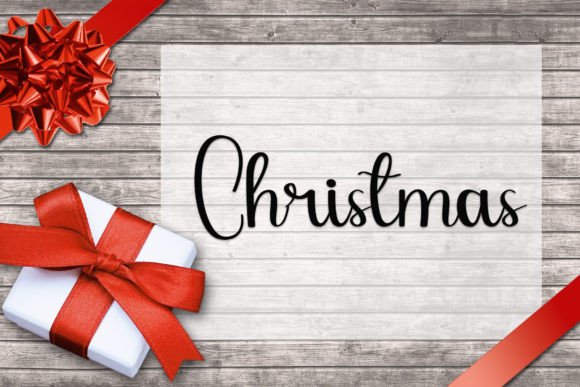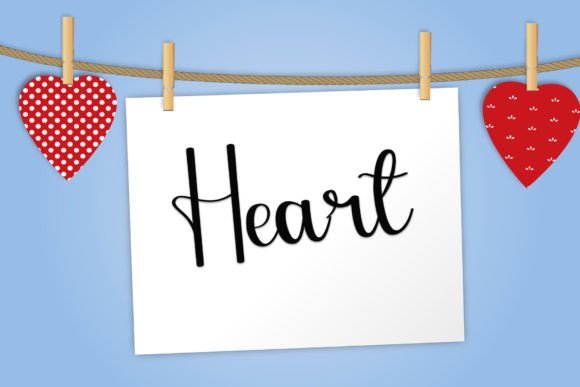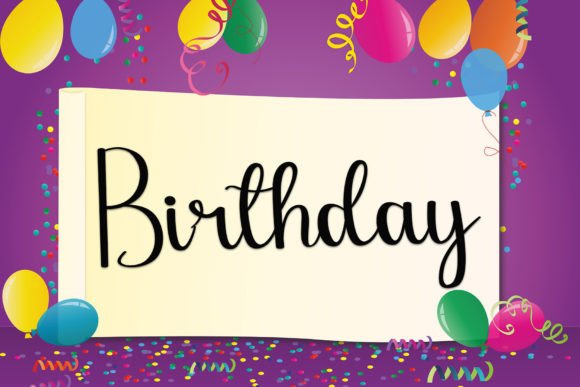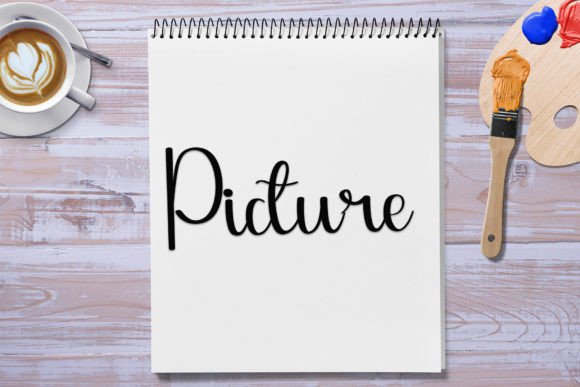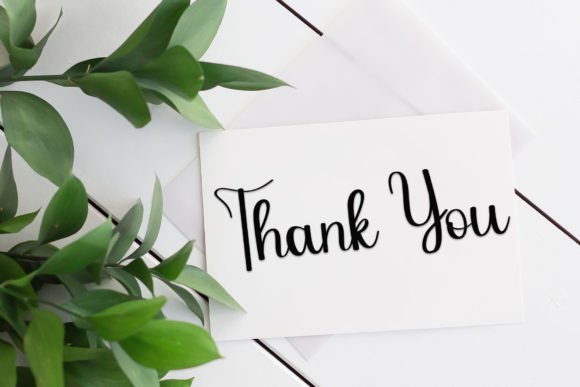
Unleashing the Art of Elegant Design: Calligraphy Font
You know that moment when you’re brainstorming ideas for a project, and suddenly, a spark of creativity hits you? The words flow effortlessly, and your mind is flooded with visions of beautiful typography. For designers, this moment is especially magical, and it’s often triggered by the perfect font. That’s where Calligraphy Font comes in – a stunning, handwritten font that adds an elegant touch to any design.
With its distinct, timeless style, Calligraphy Font is the perfect choice for designers who want to create spectacular designs that stand out from the crowd. Whether you’re working on a wedding invitation, a logo, or a promotional poster, this font is sure to elevate your project and make it truly unforgettable. Its value lies in its versatility, making it a valuable asset for designers who want to add a touch of sophistication to their work.
- Unique Characteristics: Calligraphy fonts are known for their elegant, handwritten, or cursive style, often featuring flourishes, swashes, and other decorative elements.
- Designer Control: Calligraphy fonts frequently include advanced features, such as OpenType ligatures, swashes, and contextual alternates, which enable designers to fine-tune their text and achieve a high level of visual sophistication.
Calligraphy Font Review
I recently had the chance to work with the Calligraphy Font, and I must say, it’s a lovely addition to any design project. ✨ The first thing that caught my attention was the elegant and sophisticated look it brings to any text. The intricate details and flourishes add a touch of class, making it perfect for wedding invitations, luxury branding, or any other high-end design.
One of the things I appreciate about this font is its versatility. ✨ It can be used for both digital and print media, making it a great choice for designers who need a consistent look across different platforms. The font is also highly customizable, allowing you to adjust the size, color, and spacing to fit your design needs.
While the Calligraphy Font is a great addition to any design project, there are a few limitations to be aware of: ⚠️
- It can be quite dense, which may make it difficult to read for longer blocks of text.
- The font may not be suitable for body text, as it can be quite ornate and may be distracting to read.
- It may not be the best choice for designs that require a lot of bold or italic text, as the font’s flourishes can be lost in these styles.
Overall, I’m quite impressed with the Calligraphy Font. It’s a beautiful and sophisticated font that adds a touch of elegance to any design project. While it may have some limitations, it’s a great choice for designers who need a high-end look for their projects.
Can I use a calligraphy font for body text, or is it only suitable for headlines?
While calligraphy fonts can be beautiful and eye-catching, they can be difficult to read in large blocks of text. This is because they are often designed to be used in a more decorative or accent capacity, rather than as a primary font. For body text, it’s generally best to stick with a clear, legible font that’s designed for reading. However, you can use a calligraphy font for headlines, titles, or other accent text to add visual interest and flair.